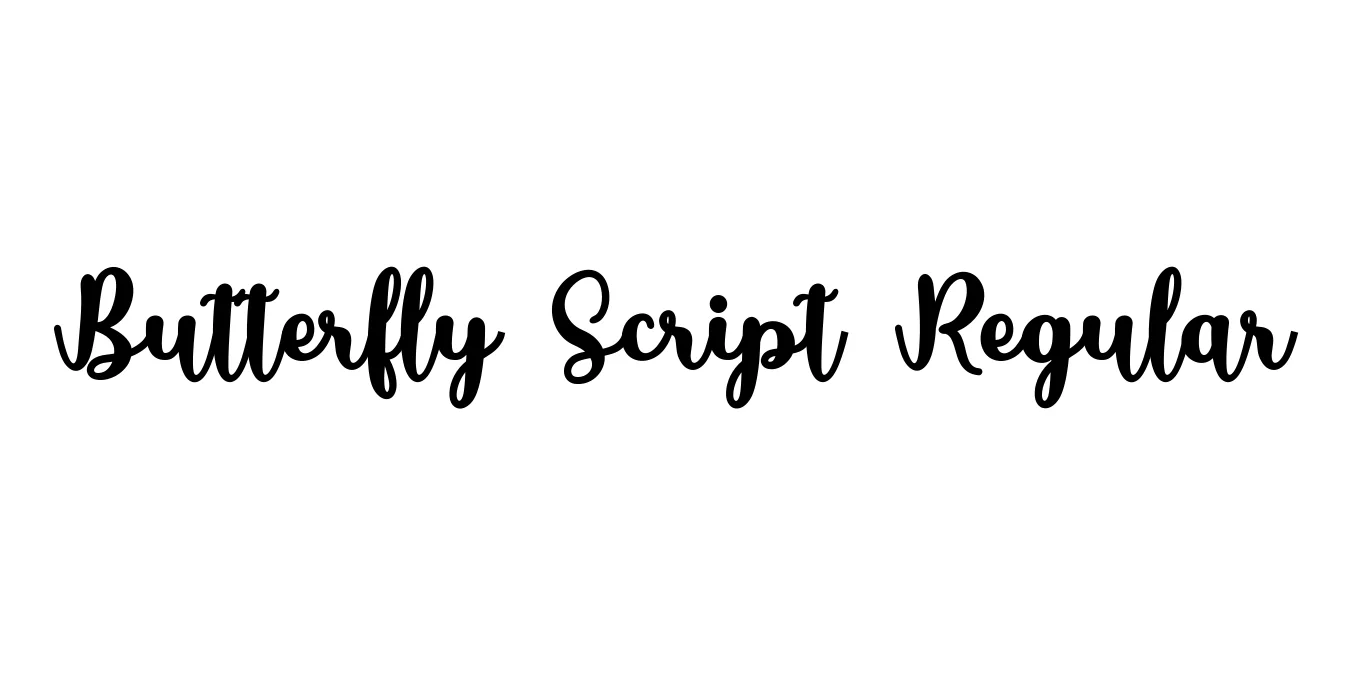
Butterfly Script Regular
Designed by Bilal Hasan (Letternun)
Butterfly Script Regular is an exquisitely crafted calligraphy font that embodies elegance and fluid motion. Characterized by its graceful, sweeping curves and sophisticated ligatures, it mimics the natural flow of hand-inked penmanship with a modern digital precision. The font features delicate swashes and a whimsical aesthetic that makes it particularly effective for high-end design projects requiring a soft, personal, and artisanal touch.
Since its release, this typeface has become a staple for designers focusing on luxury branding and emotive visual communication. Its consistent stroke weight and balanced letterforms ensure that it remains highly legible even when used in complex layouts. Butterfly Script serves as a versatile bridge between traditional romantic script and contemporary design needs, making it a timeless choice for everything from digital displays to premium printed collateral.
Butterfly Script Regular Best Uses
Perfect for creating elegant invitations, save-the-date cards, and seating charts.
Ideal for luxury fashion logos, beauty brand identities, and boutique signage.
Excellent for crafting inspirational quotes and stylized Instagram story overlays.
Adds a premium and personal feel to cosmetics, jewelry, and confectionery packaging.